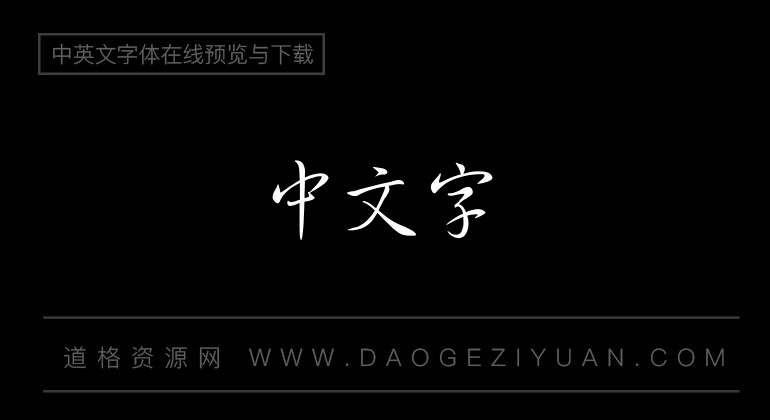
is a very good handwriting art font, with a good visual sense, suitable for cultural propaganda design, commercial brand advertising and product packaging design and personalized text typesetting and other more scenes.
金梅简体行书国际码字符映射图